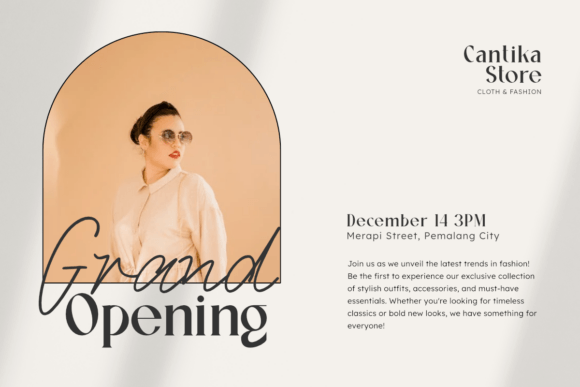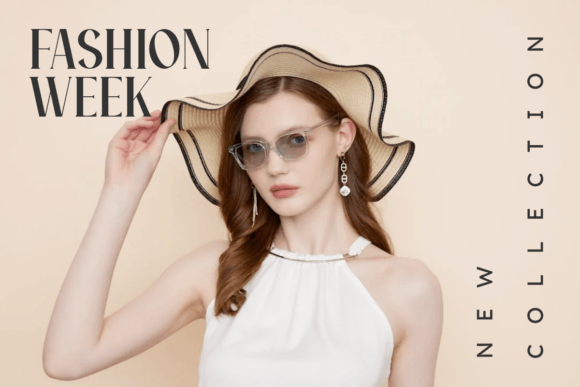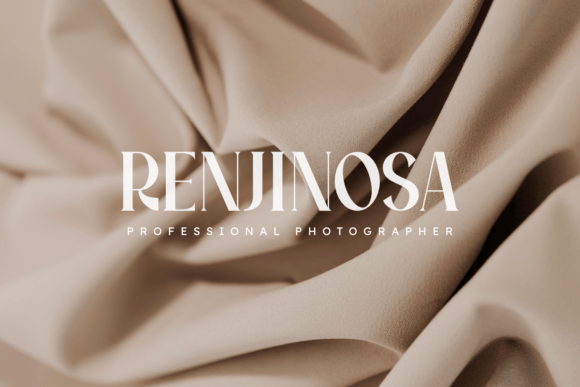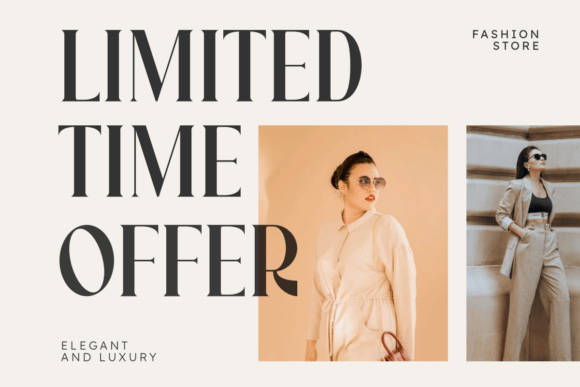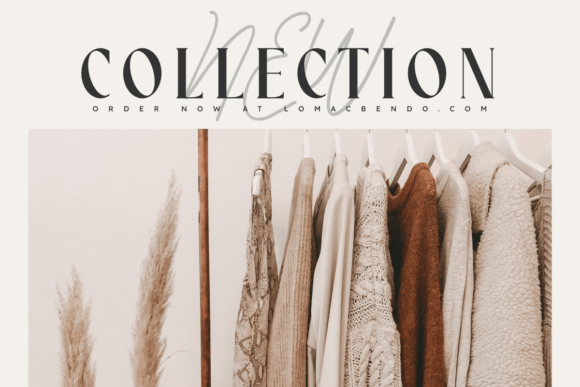
Introducing Bright Magical: The Epitome of Elegance in Modern Serif Fonts
In the realm of typography, few fonts manage to strike a balance between modernity and sophistication as effortlessly as Bright Magical. This stunning serif font has been crafted to bring an air of elegance and refinement to any design project, making it an ideal choice for those seeking to elevate their brand, publication, or event to new heights of luxury and style.
Unparalleled Versatility for High-End Designs
Bright Magical’s design is characterized by its clean lines and subtle curves, a combination that lends itself beautifully to a wide range of high-end applications. Whether you’re working on upscale branding, luxury fashion editorials, or stylish event invitations, this font is sure to make a lasting impression. Its professional yet captivating style ensures that it can be used effectively for both headlines and body text, providing designers with a versatile tool that can be relied upon to deliver results.
From fashion labels that require a touch of sophistication to artistic photography portfolios that demand a more refined aesthetic, Bright Magical proves to be an invaluable asset. Its ability to convey a sense of luxury and modernity makes it particularly well-suited for projects where making a statement is key.
A Contemporary Approach to Typography
Bright Magical speaks directly to a contemporary audience that appreciates the nuances of minimalist yet impactful typography. In an era where design trends often favor the bold and the avant-garde, this font offers a refreshing alternative that champions elegance and simplicity. Its modern serif design ensures that it remains approachable and legible, even in smaller sizes, making it perfect for body text in high-end publications and websites.
Crafting Your Vision with Bright Magical
For designers and crafters, the quest for the perfect font can often feel like a journey without end. However, with Bright Magical, that search can finally come to an end. This font is not just a typographical choice; it’s a design statement that communicates a commitment to quality, sophistication, and style.
Imagine being able to convey the essence of your brand or event with a font that exudes confidence and luxury. With Bright Magical, every stroke, every letter, and every word becomes a testament to your impeccable taste and dedication to excellence. Whether you’re designing a logo, crafting an editorial spread, or creating invitations for a high-profile event, this font ensures that your work stands out for all the right reasons.
Why Choose Bright Magical?
- Elegance and Sophistication: Bright Magical brings an unparalleled level of elegance and sophistication to any design, making it perfect for high-end projects.
- Versatility: Its clean lines and subtle curves make it versatile for use in both headlines and body text, across a variety of applications.
- Modern Appeal: With its modern serif design, Bright Magical appeals to a contemporary audience that values minimalist yet impactful typography.
- Professionalism: This font communicates professionalism and a keen eye for detail, essential for brands and designers looking to make a lasting impression.
Bright Magical is more than just a font; it’s a design experience that elevates and transforms. For designers and crafters seeking to infuse their projects with a sense of luxury, sophistication, and modernity, this font is the ultimate tool. By choosing Bright Magical, you’re not just selecting a typographical style; you’re embracing a design philosophy that prioritizes elegance, versatility, and impact.
Whether you’re working on a high-end fashion brand, a luxury event, or a sophisticated publication, Bright Magical is poised to become your go-to font for creating designs that speak to a discerning audience. Experience the magic of Bright Magical today and discover a world of limitless design possibilities.